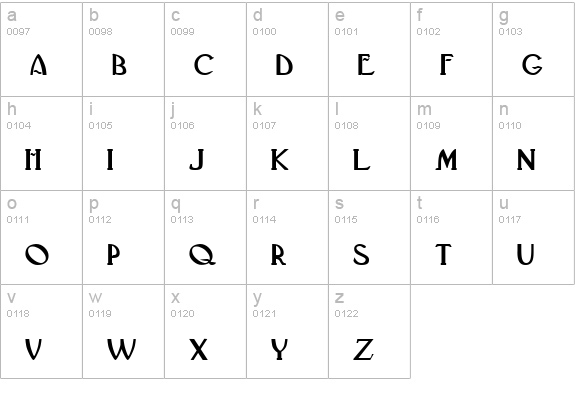
Deco-Extended Normal is the standard, neutral, extended-width variant in the Deco typeface family \xE2\x80\x94 well suited to general body text, paragraphs, and standard typographic work.
Deco-Extended Normal font is a stunning display typeface that exudes elegance and sophistication. With its sleek lines and stylish curves, this font is perfect for adding a touch of class to any design project. Whether you're working on a poster, logo, or branding materials, Deco-Extended Normal font is sure to make a statement. The best part is that Deco-Extended Normal font is completely free to download at FontsMarket.com. This means you can easily access this beautiful font and use it in your projects without any cost. Don't miss out on this amazing opportunity to enhance your designs with the timeless beauty of Deco-Extended Normal font. Download it now and add a touch of sophistication to your work!